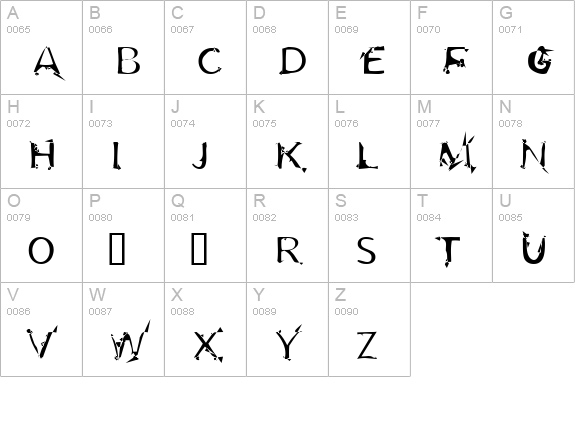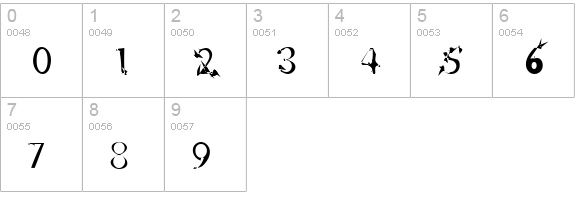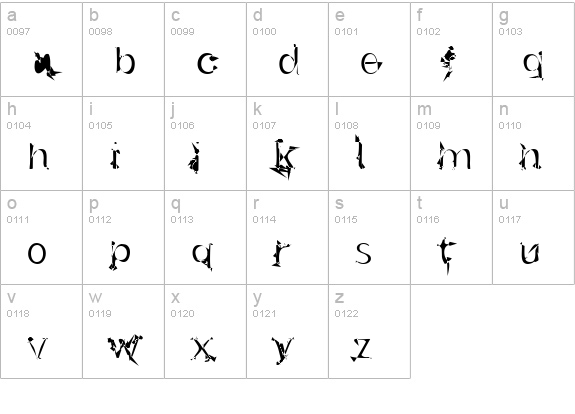
u26fog Font Details
Introducing the captivating and versatile U26fog font, a remarkable addition to your typographic repertoire. This font is the perfect blend of elegance and modernity, designed to create stunning visual experiences in various creative projects. With its distinctive and unique character shapes, U26fog font effortlessly captures attention and adds an extra layer of sophistication to any design. But what sets U26fog font apart is not just its visual appeal, but also its accessibility. It is proudly offered as a free download, allowing designers and enthusiasts alike to freely access and utilize its remarkable features. This font embodies the spirit of inclusivity, ensuring that everyone can enhance their creative endeavors without any limitations. To download this extraordinary font, simply visit FontsMarket.com, a trusted source for a wide range of high-quality fonts. There, you will discover a treasure trove of fonts, including U26fog, available for download at no cost. FontsMarket.com is dedicated to providing designers with the tools they need to bring their visions to life, and U26fog font is just one shining example of their commitment to excellence. So, whether you are a professional designer seeking a font that exudes sophistication or an aspiring creative looking to add a touch of elegance to your projects, U26fog font is the ideal choice. Its captivating design, combined with its availability as a free download at FontsMarket.com, makes it a truly irresistible addition to your font library. Elevate your designs with U26fog font and let your creativity soar to new heights.